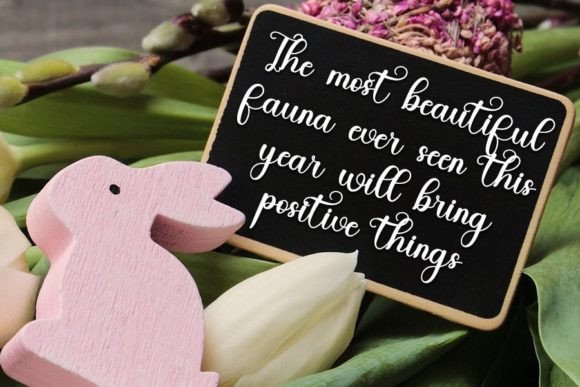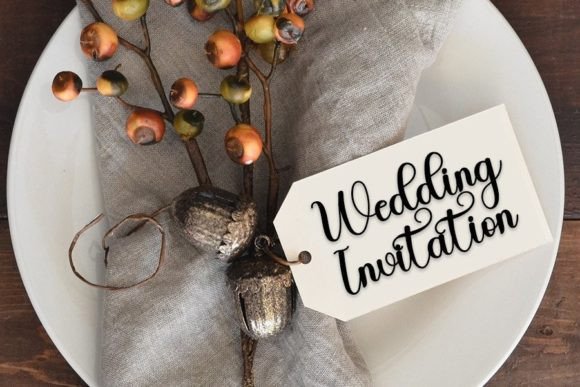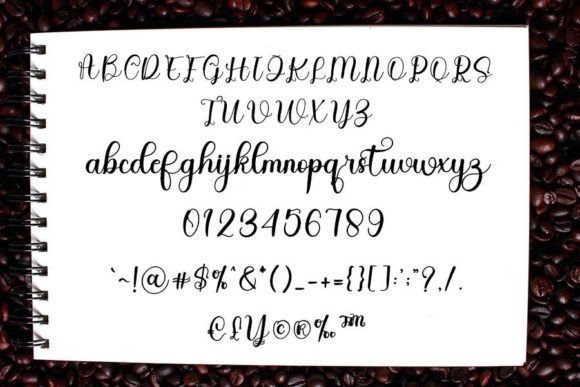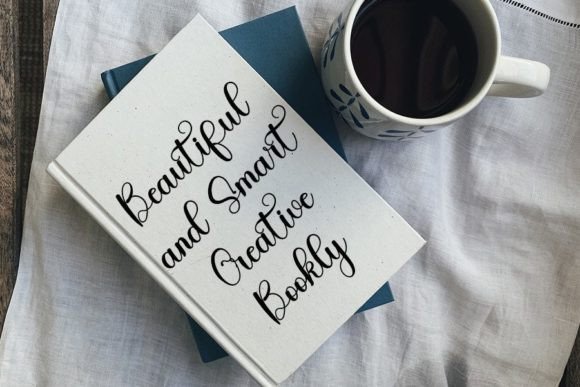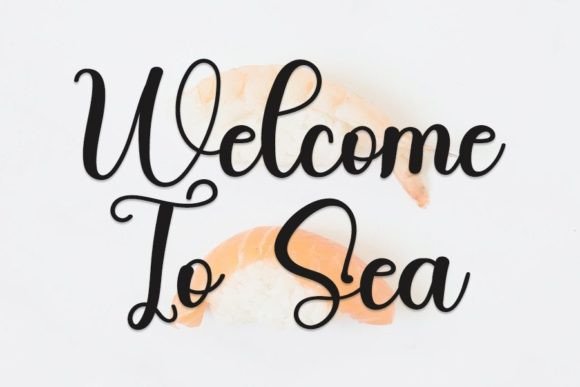
Introduction to Guppy Font
Remember that moment when you’re brainstorming for a creative project, and you just can’t find the right font to convey your vision? You scroll through countless options, but none of them seem to capture the essence you’re looking for. Well, we’re here to change that. Introducing the Guppy Font, a stunning handwritten font that’s sure to elevate your designs to the next level.
With its contemporary atmosphere and impeccable form, the Guppy Font is inspired by timeless classic calligraphy. Its balanced and varied design makes it a valuable resource for designers looking to add a touch of sophistication to their projects. Whether you’re working on a branding project or creating a social media graphic, the Guppy Font is a high-quality design resource that’s sure to impress.
What sets the Guppy Font apart is its versatility – it can be used on a transparent background or with a solid color, making it a great addition to any design project. And the best part? It’s available for free download, making it an accessible resource for designers of all levels.
Key Features of Guppy Font
- High-quality design resource with a transparent background, ideal for creative projects.
- Unique characteristics include a playful, whimsical design with a fish-inspired theme.
- Available in a single font size, with a resolution of 300 DPI, suitable for printing and digital use.
- Designed to be versatile, making it suitable for a variety of design projects, from logos to typography.
Honest Review: Guppy Font
As a designer, I’m always on the lookout for high-quality design resources to elevate my creative projects. The Guppy Font is one of the latest additions to my arsenal, and I must say, it’s a game-changer. ✨
First off, the Guppy Font is available for free download, making it an excellent addition to any designer’s toolkit. The font is versatile, with a range of weights and styles to suit any design need. I appreciate the transparent background, which makes it easy to use in combination with other design elements.
Here are some of the things that work well with the Guppy Font:
- Range of weights and styles to suit any design need
That being said, there are a few limitations to the Guppy Font. ⚠️
- Limited customization options
- Not suitable for complex typography
Overall, I’m thoroughly impressed with the Guppy Font. It’s a solid addition to any designer’s toolkit, and I’m excited to see how it elevates my future creative projects.
Tips for Getting the Most Out of Guppy Font
Guppy Font is perfect for a variety of creative projects, including infographics, social media graphics, and business cards. You can also use Guppy Font in combination with other design resources to create unique and eye-catching designs.